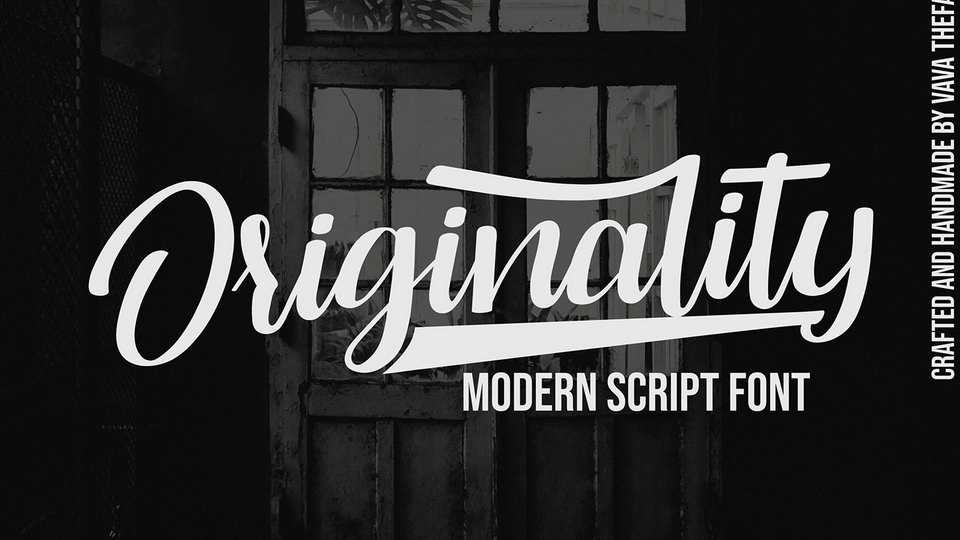
Download Originality font is a beautiful modern handwritten script, combining classic authenticity with modern style. Perfect for flyer, invitations, advertisements, banners, books, business cards, signatures, and others who want a bold script font font type.